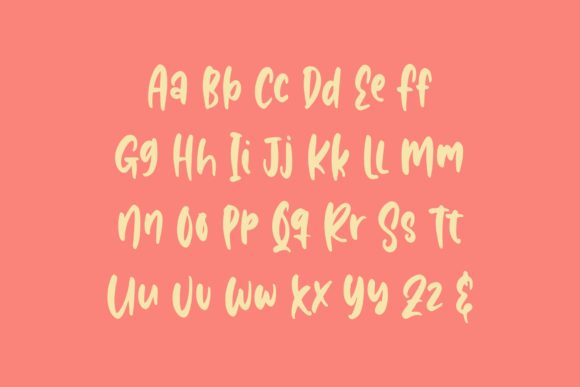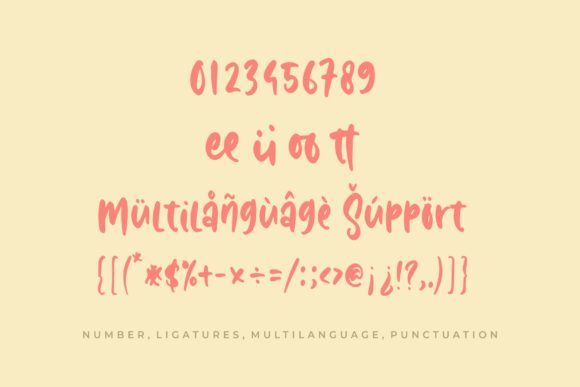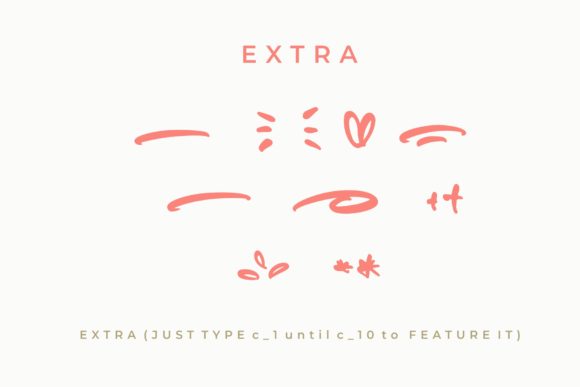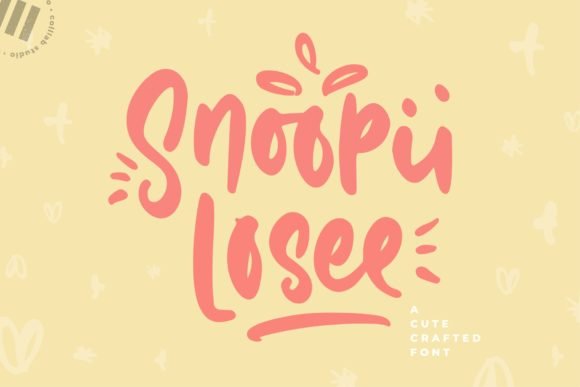
Introduction to Snoopii Losee Font
Snoopii Losee embodies fun, cute, playfulness, and authenticity.
This enchanting display font will turn any creative idea into a true standout .
Snoopii Losee Font offers exceptional quality and versatility, making it a valuable addition to your design toolkit. Whether you’re creating for personal projects or commercial use, Snoopii Losee Font delivers professional results.